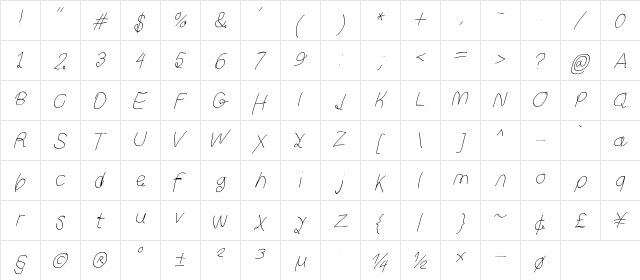
Curly Kue ThinIta Font Preview
Curly Kue ThinIta
Design Context for Curly Kue Typeface
Curly Kue takes a measured approach to typography — its balanced proportions and neutral character make it a reliable workhorse for both digital and print work. Its slender proportions lend an understated elegance to any composition.